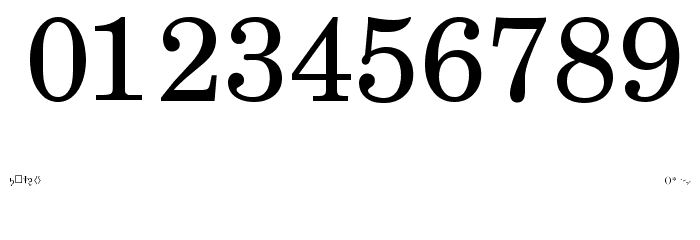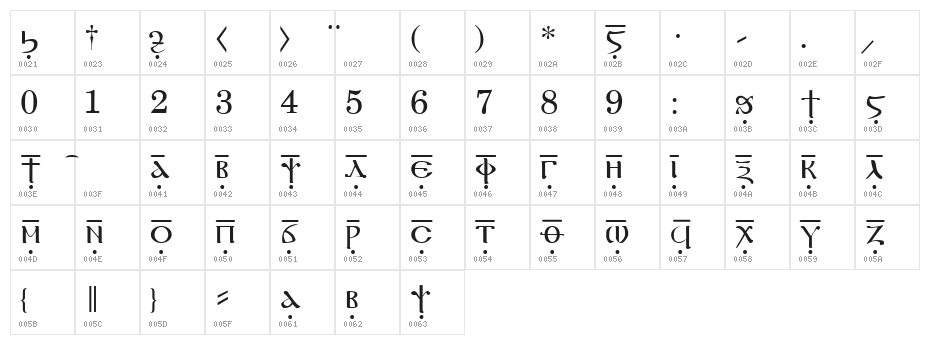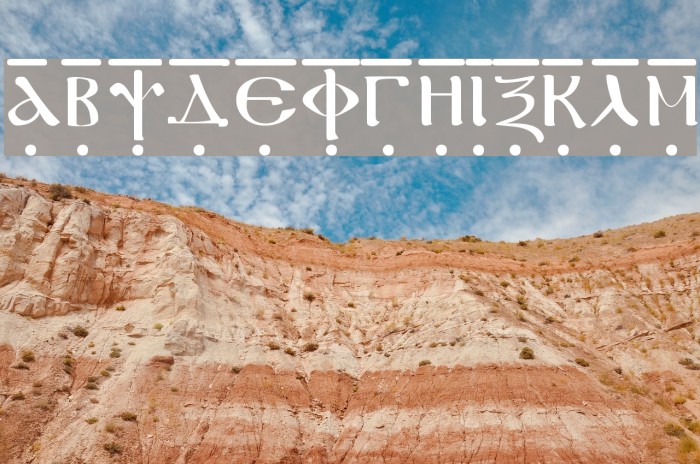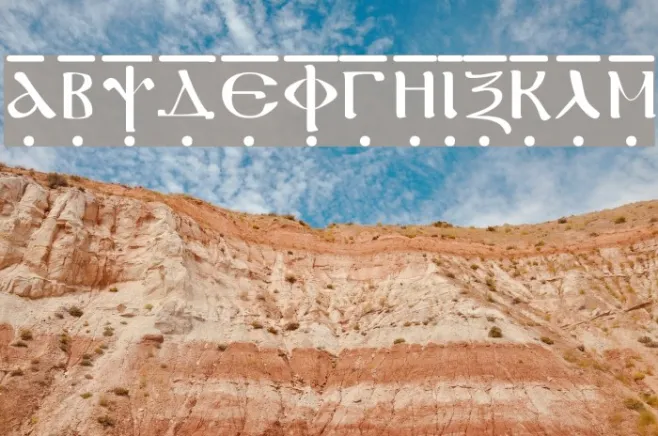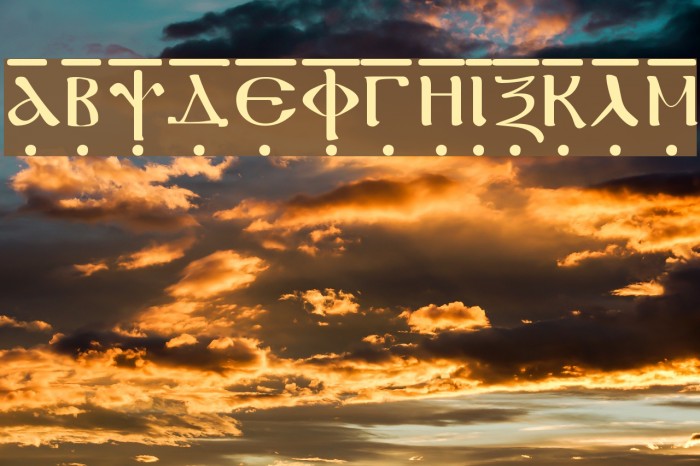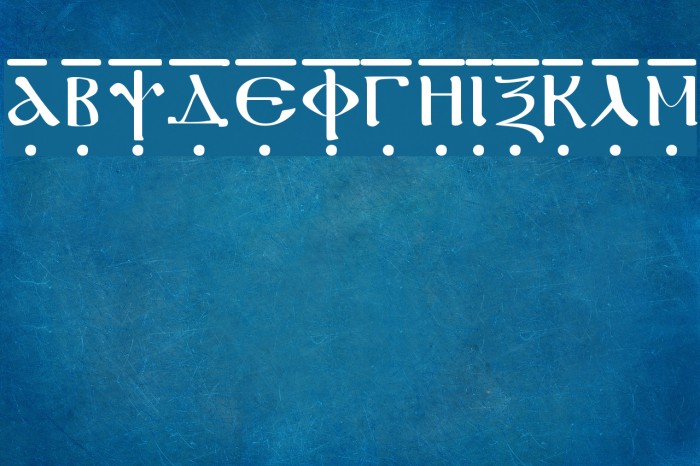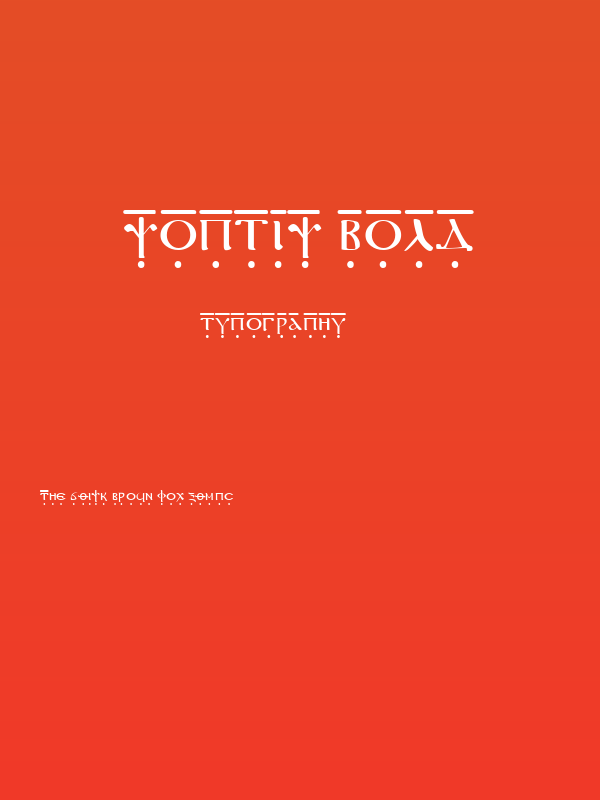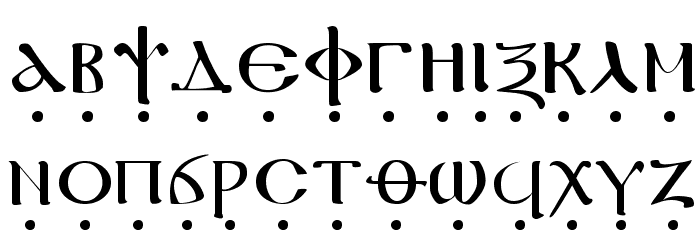
Coptic Bold Font
Coptic Bold Description
This font features a bold and striking design, characterized by its unique blend of traditional and modern elements. The uppercase letters exhibit a strong presence with distinct geometric shapes and sharp angles, while the lowercase letters maintain a consistent style that complements the uppercase. The numerals are clear and bold, ensuring readability. The special characters are designed to match the overall aesthetic, providing a cohesive look across all glyphs. The font's design is reminiscent of ancient scripts, yet it incorporates contemporary styling, making it versatile for various applications.